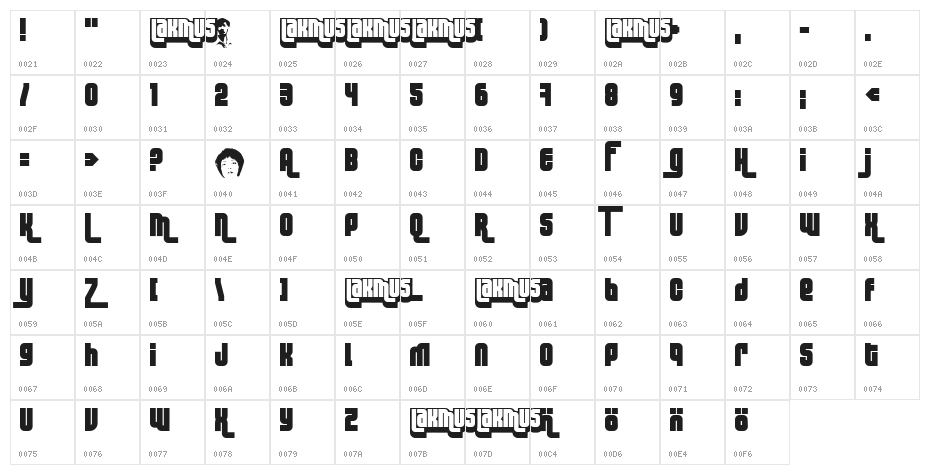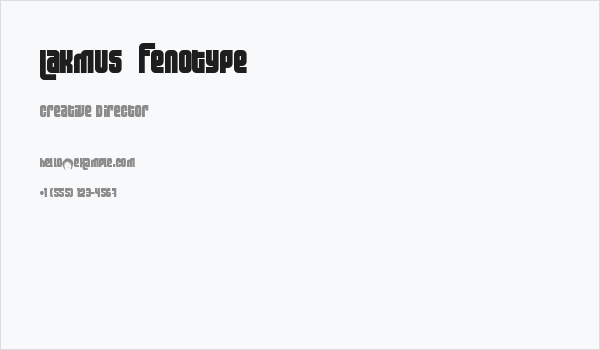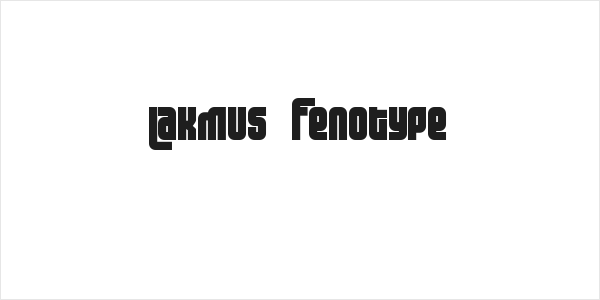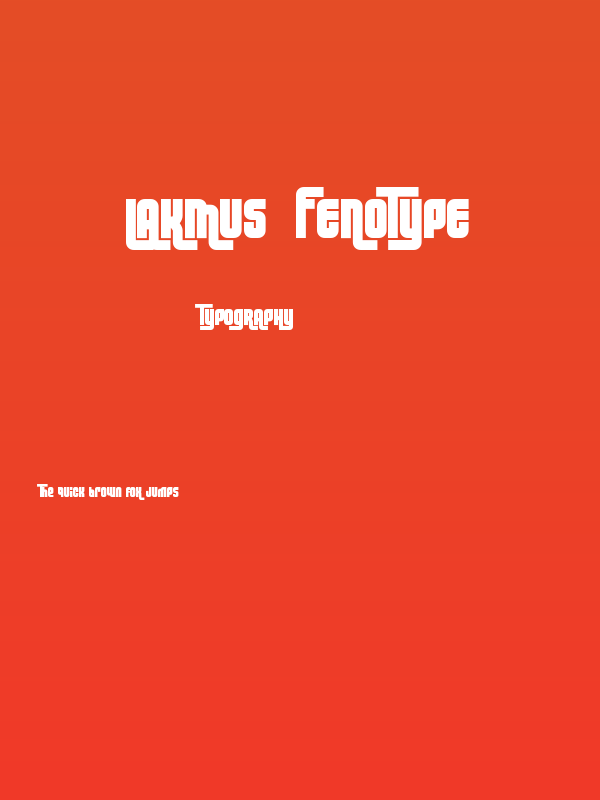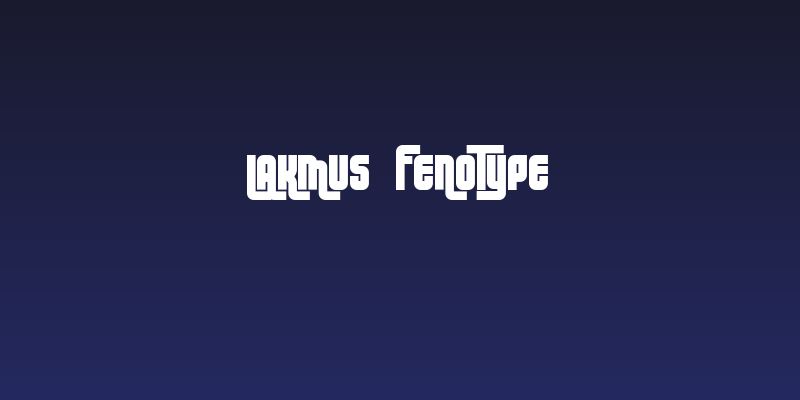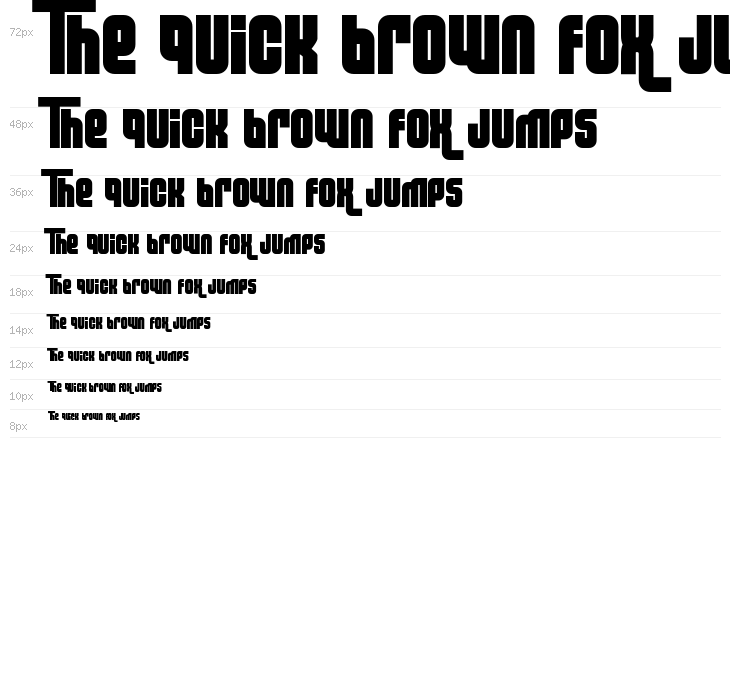
Lakmus Fenotype Font
Lakmus Fenotype Description
This font features a bold and geometric design with a strong presence. The characters are constructed with thick, uniform strokes, giving it a robust and impactful appearance. The uppercase and lowercase letters maintain a consistent style, with some unique angular cuts and extended lines that add a modern twist. The numerals are equally bold, ensuring they stand out in any composition. Special characters are designed to match the overall aesthetic, making this font suitable for a variety of creative applications.
Proposed ProjectsIdeal for branding, posters, headlines, and any project requiring a strong visual impact.